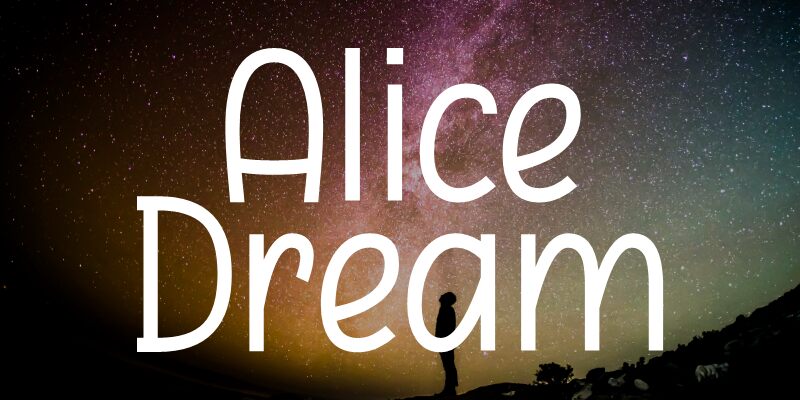
Alice Dream
Alice Dream is a beautiful light script font created by Kristoper Sianturi and Situjuh Nazara. Its smooth and flowing style makes it perfect for wedding invitations, logo designs, greeting cards, posters, and other creative projects.